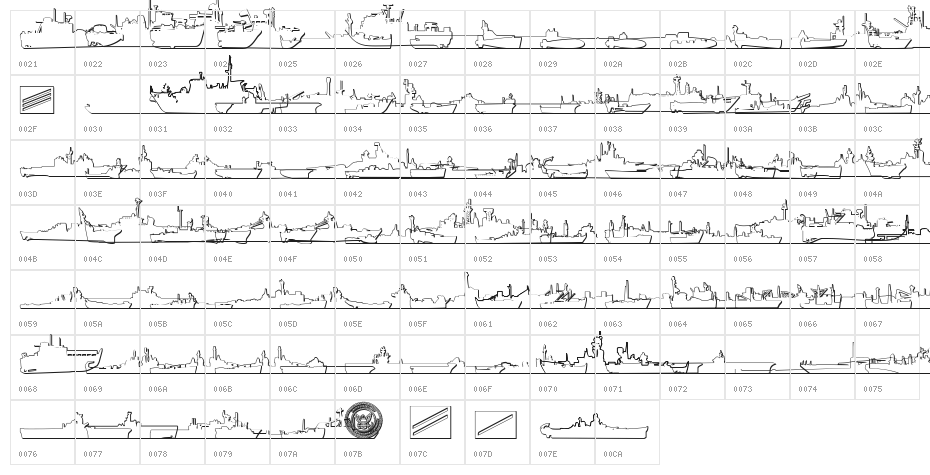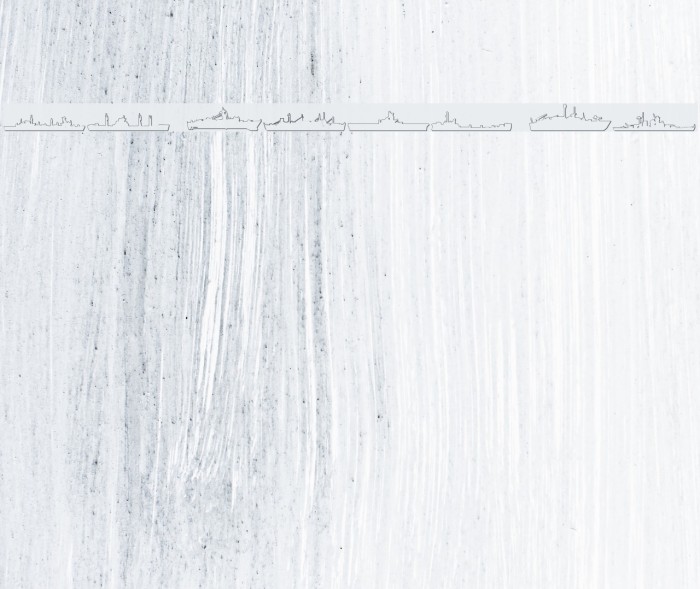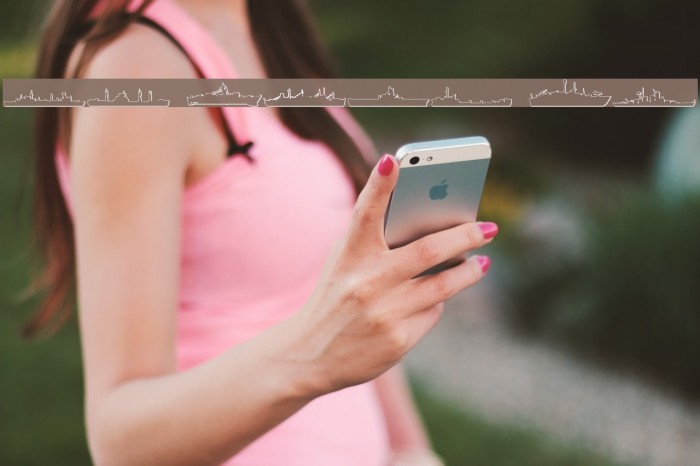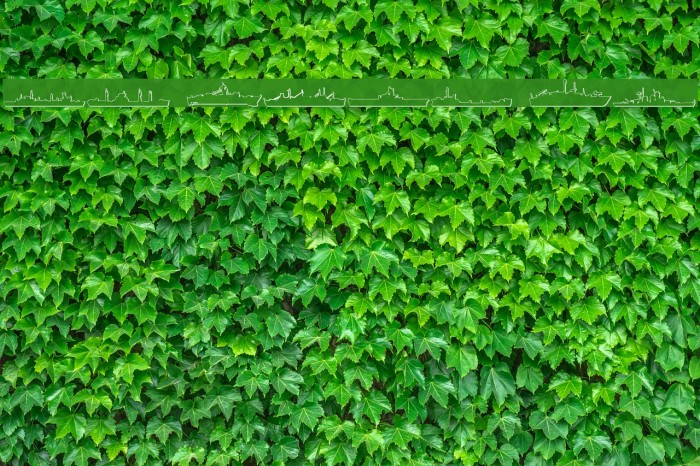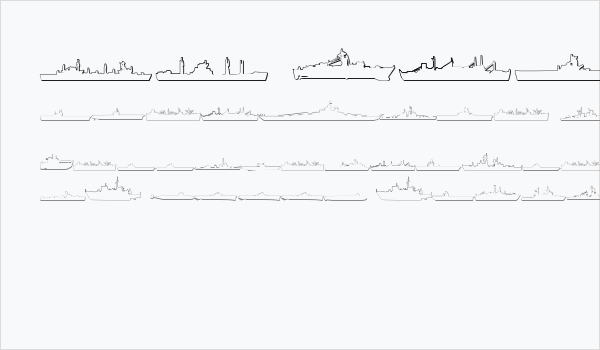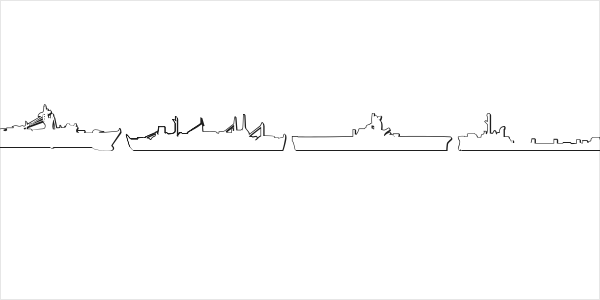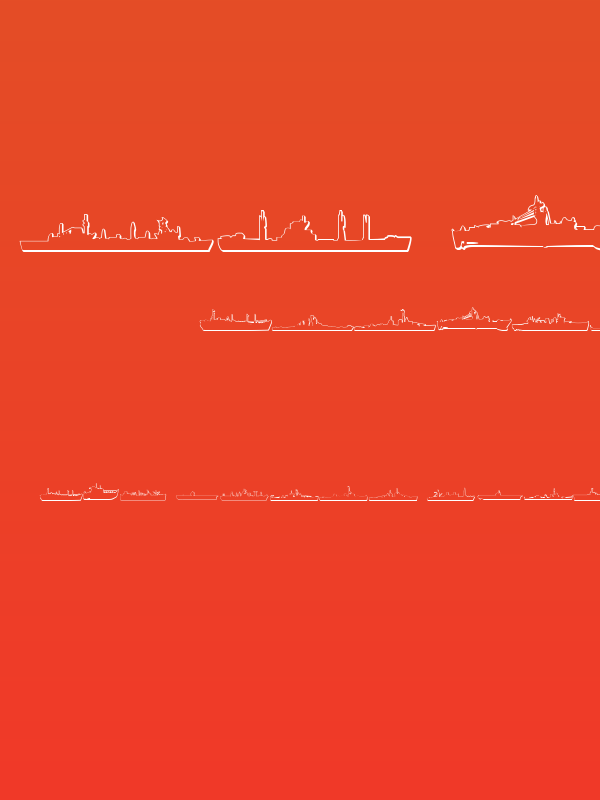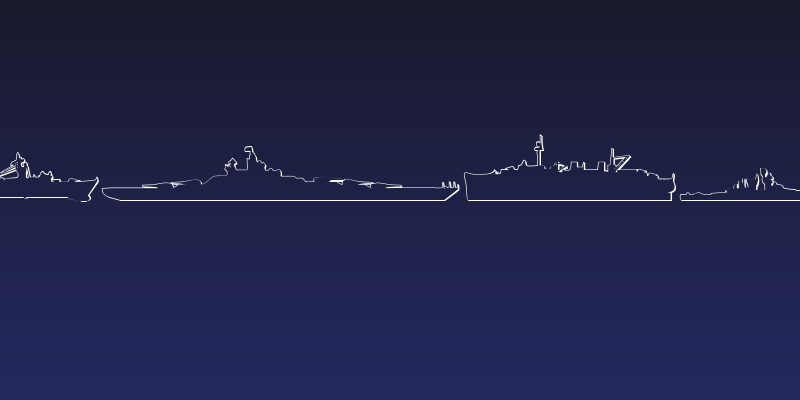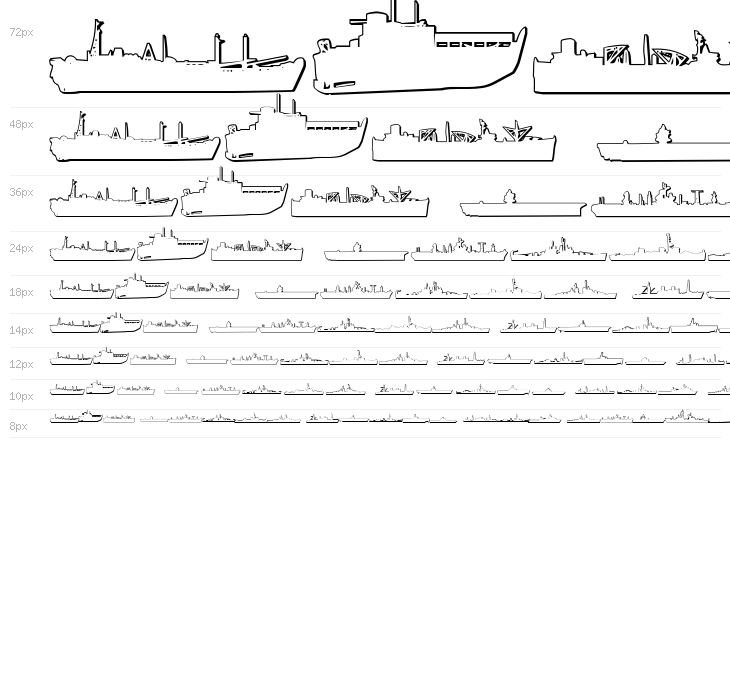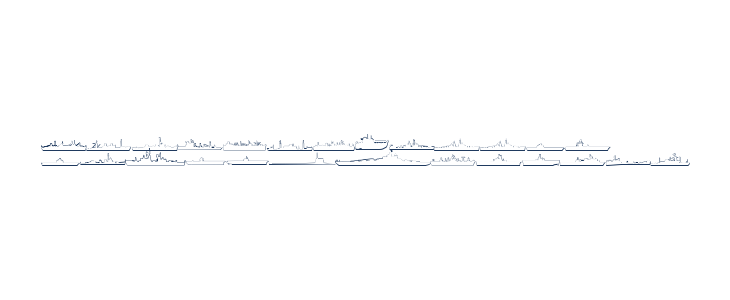
US Navy 3D Font
US Navy 3D Description
A decorative font featuring detailed 3D silhouettes of various US Navy ships and vessels, forming each character. The font is highly intricate with fine line work representing different ship profiles.
| Overall Style | Thematic, illustrative, and detailed |
| Use Case | Headlines, logos, themed posters, and decorative titles |
| Proposed Projects | Military-themed designs, naval history publications, posters, logos for maritime organizations, and themed event materials. |